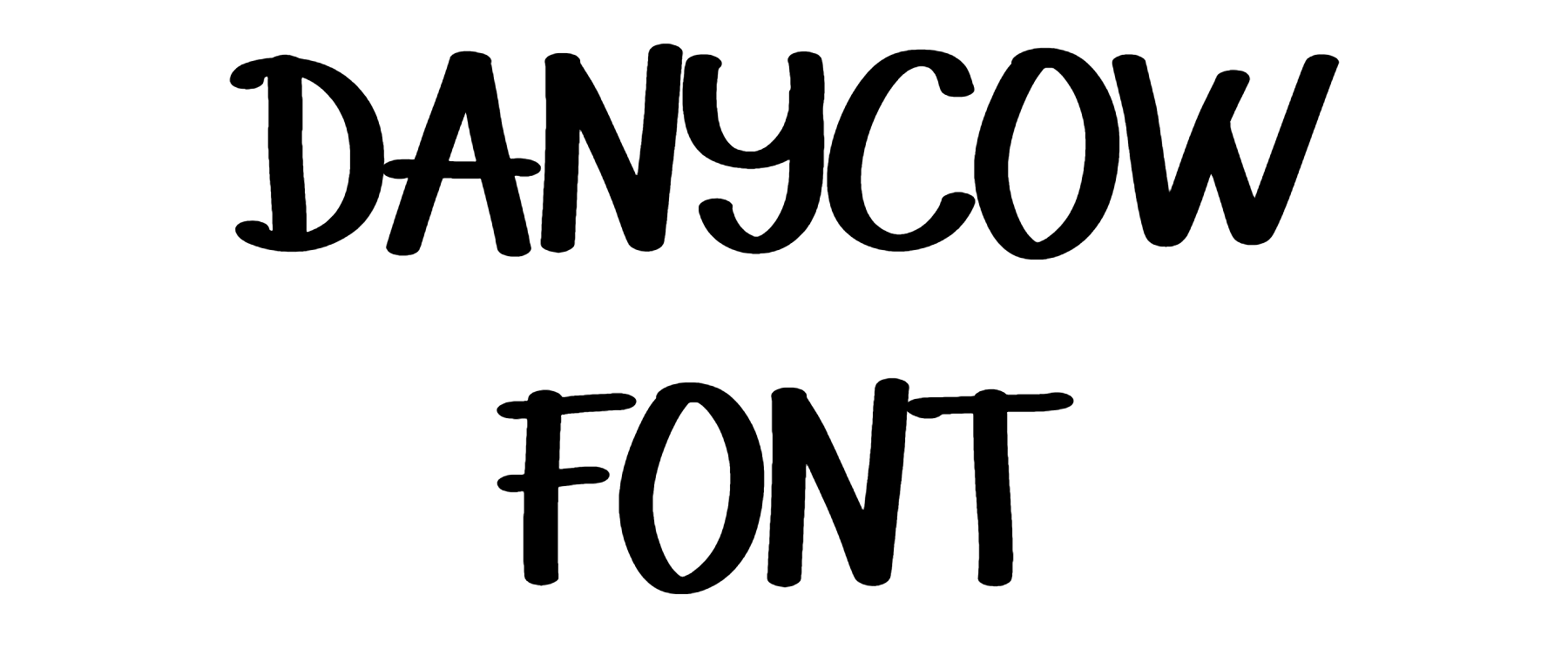
Danycow
Danycow is a cartoon font. It has a cheerful, hand-drawn look that makes people smile before they even read the words. You can download it for free and test it with your own words in the preview above.
What You Can Type With Danycow
Danycow has the full alphabet in upper and lowercase. There are no numbers, so you'll need a second font for dates, prices or phone numbers. Punctuation is limited, so look at the character map if you need a specific symbol. It also has the accented letters you need for Spanish, French, Portuguese and Italian.
Where Danycow Works Best
Designers usually reach for fonts like Danycow when they're making kids' books, birthday invites and fun YouTube thumbnails. Cartoon fonts are great for short, fun lines. If you place it over a busy photo, add a thick outline or a drop shadow so it stays readable.
Does Danycow support accented letters?
Yes. Danycow includes the accented letters needed for Spanish, French, Portuguese and Italian, so it works for more than just English.
Does Danycow have numbers?
No. Danycow has no numbers, so pair it with another font for dates, prices or phone numbers.